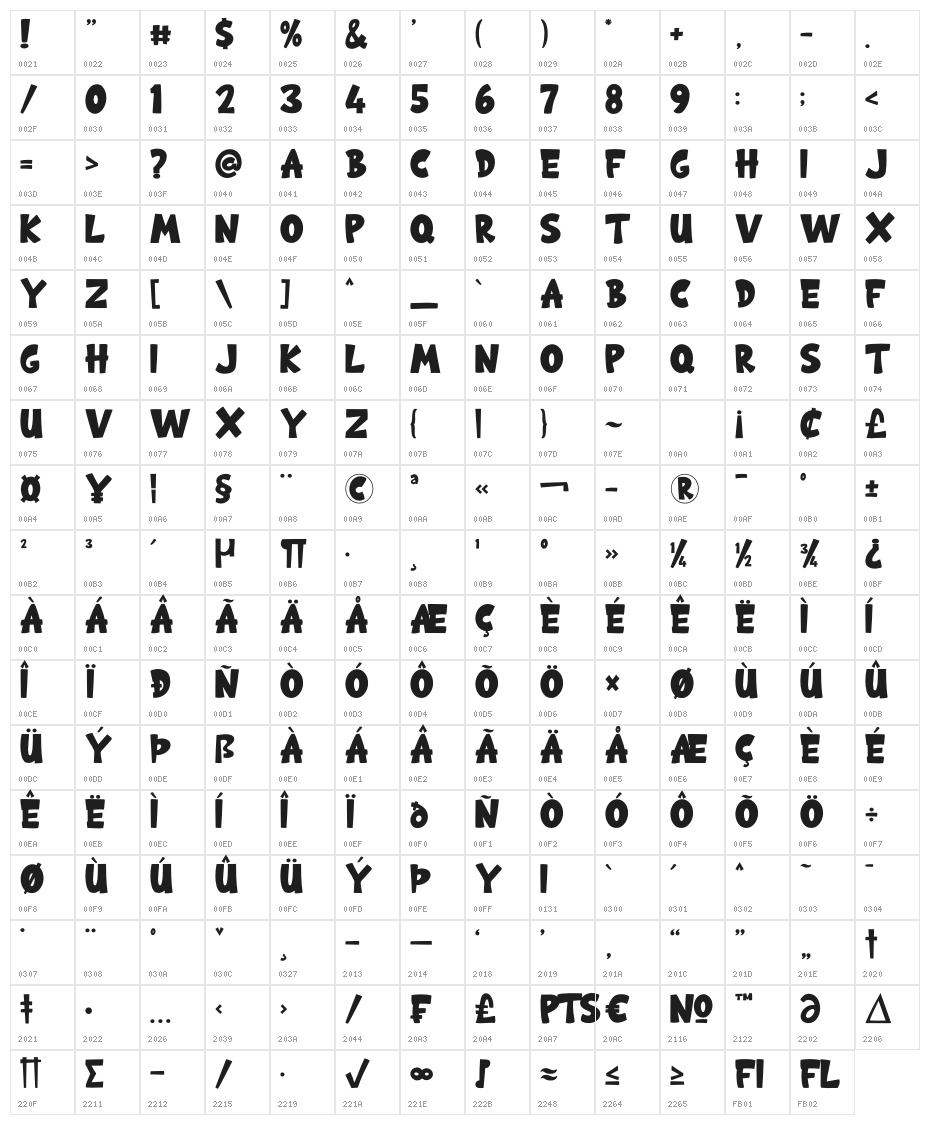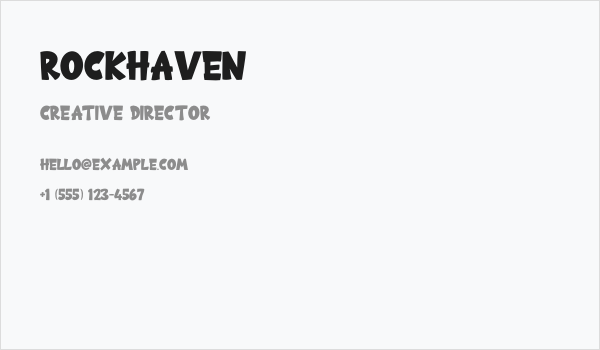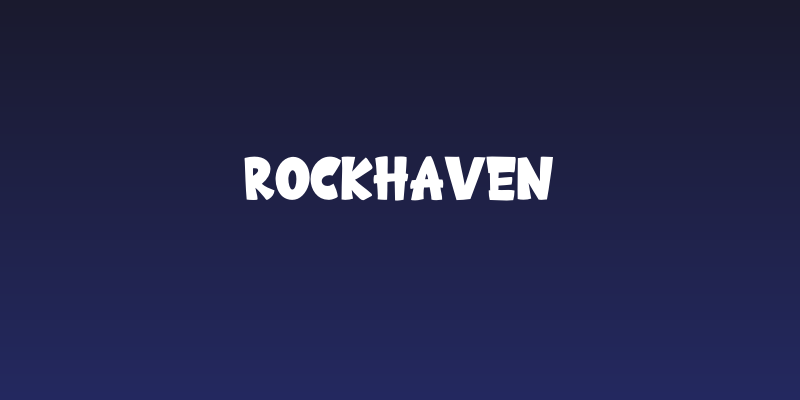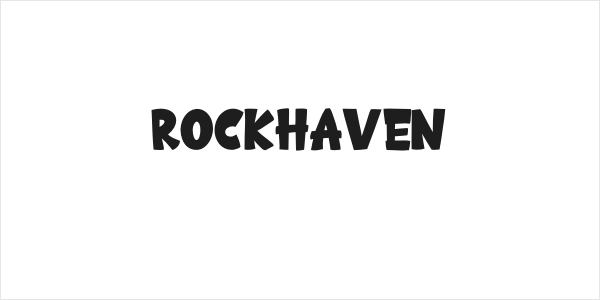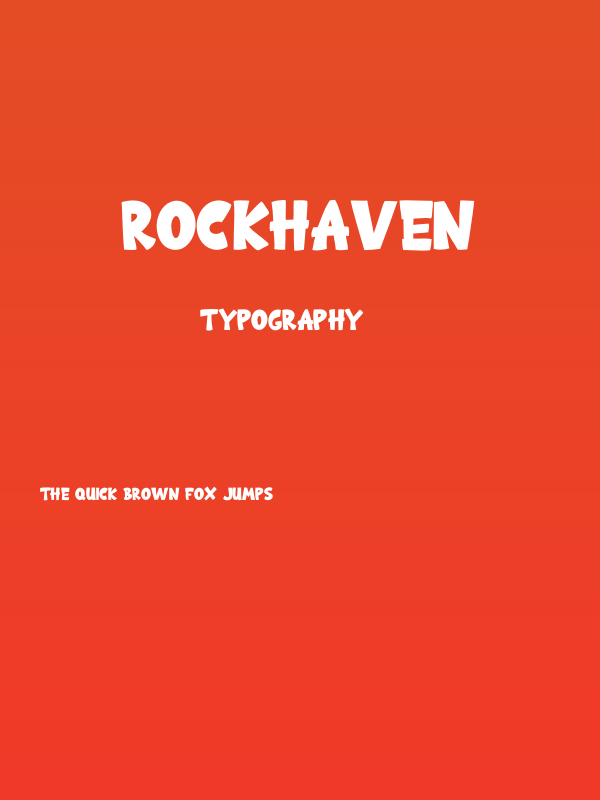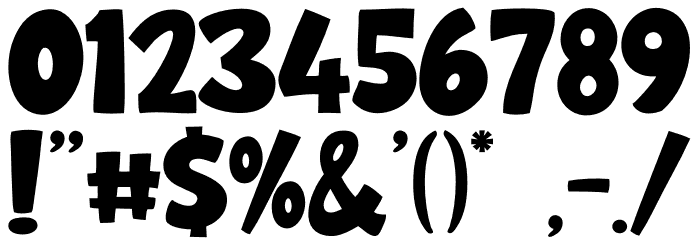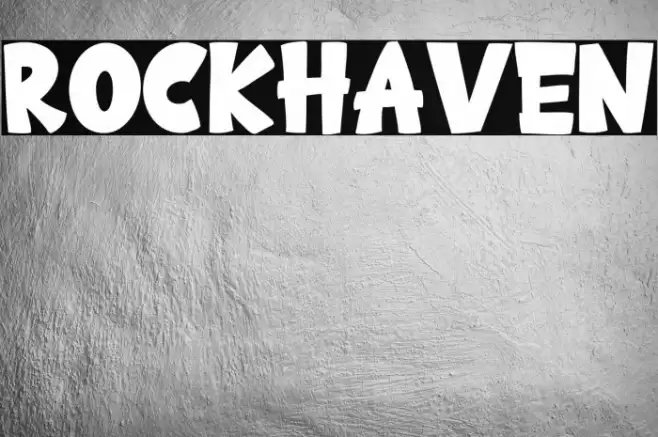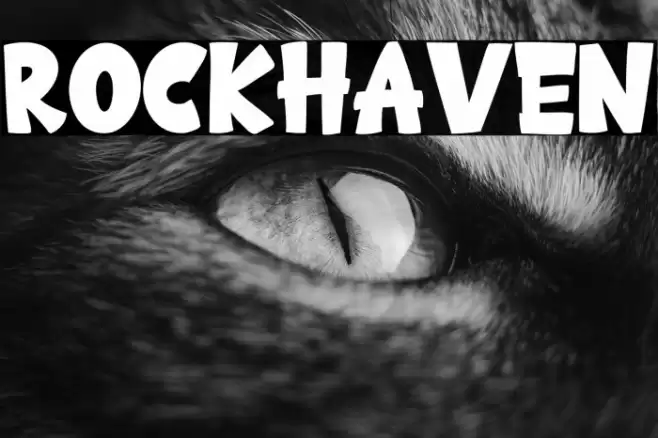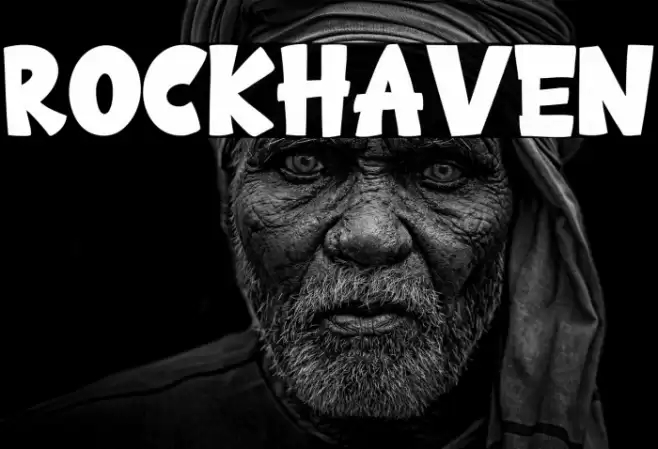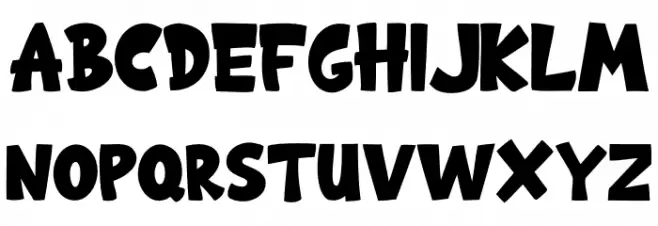
Rockhaven Font
Rockhaven Description
This font features a bold and playful design, characterized by its thick, rounded strokes and slightly irregular shapes. The letters have a cartoonish and friendly appearance, making them highly suitable for informal and fun contexts. The uppercase and lowercase letters maintain a consistent style, with a strong emphasis on boldness and visibility. The numbers and special characters follow the same design principles, ensuring a cohesive look across all elements. The font's unique style makes it stand out, with a lively and energetic feel that captures attention.
| Overall Style | Playful, Cartoonish, Fun |
| Use Case | Headlines, Posters, Branding |
| Proposed Projects | Ideal for children's books, comic strips, playful branding, and event posters. |